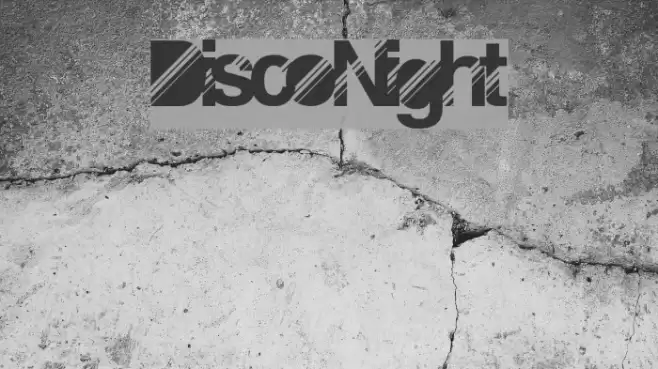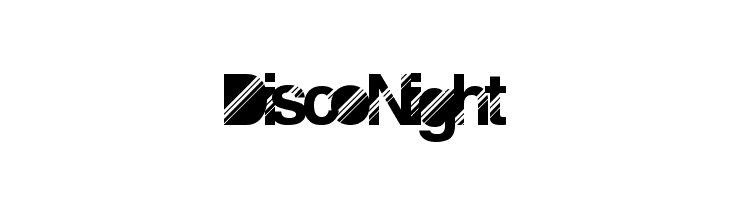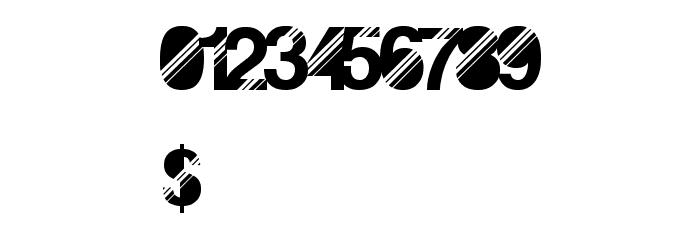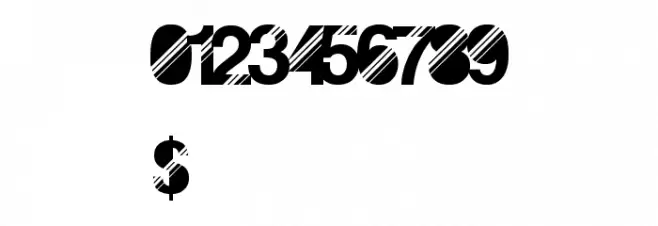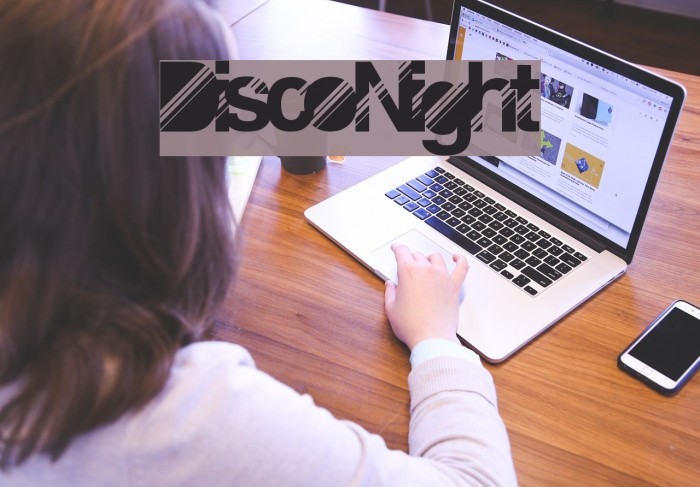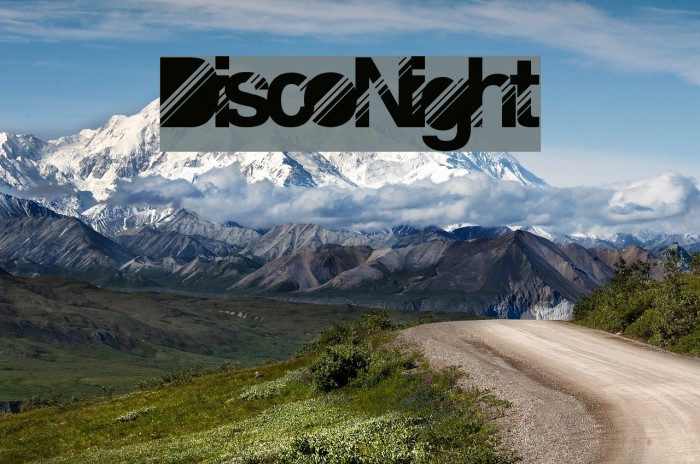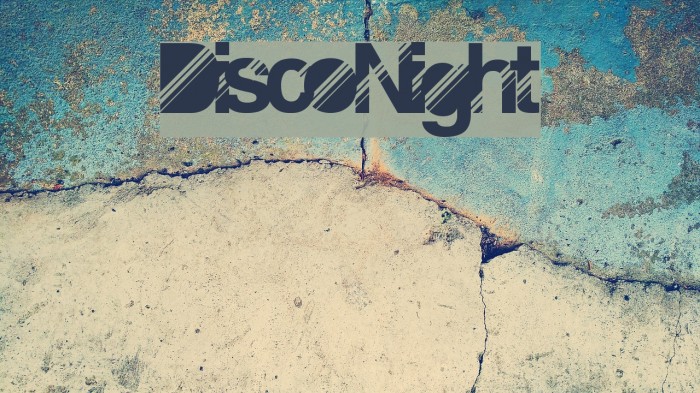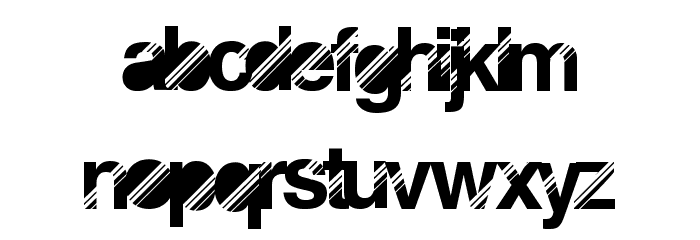
DiscoNight Font
DiscoNight Description
This font features a bold and dynamic style with a distinct diagonal stripe pattern running through each character, giving it a vibrant and energetic feel. The uppercase and lowercase letters maintain a consistent weight, contributing to a cohesive look. The numbers and special characters are designed with the same striped effect, ensuring uniformity across all elements. The font's unique design makes it stand out, perfect for projects that require a touch of flair and modernity.
A bold, striped font with a dynamic and energetic style from Fancy fonts.
- Proposed Projects: Ideal for music event posters, nightclub flyers, modern branding, and any project needing a lively, eye-catching typeface.